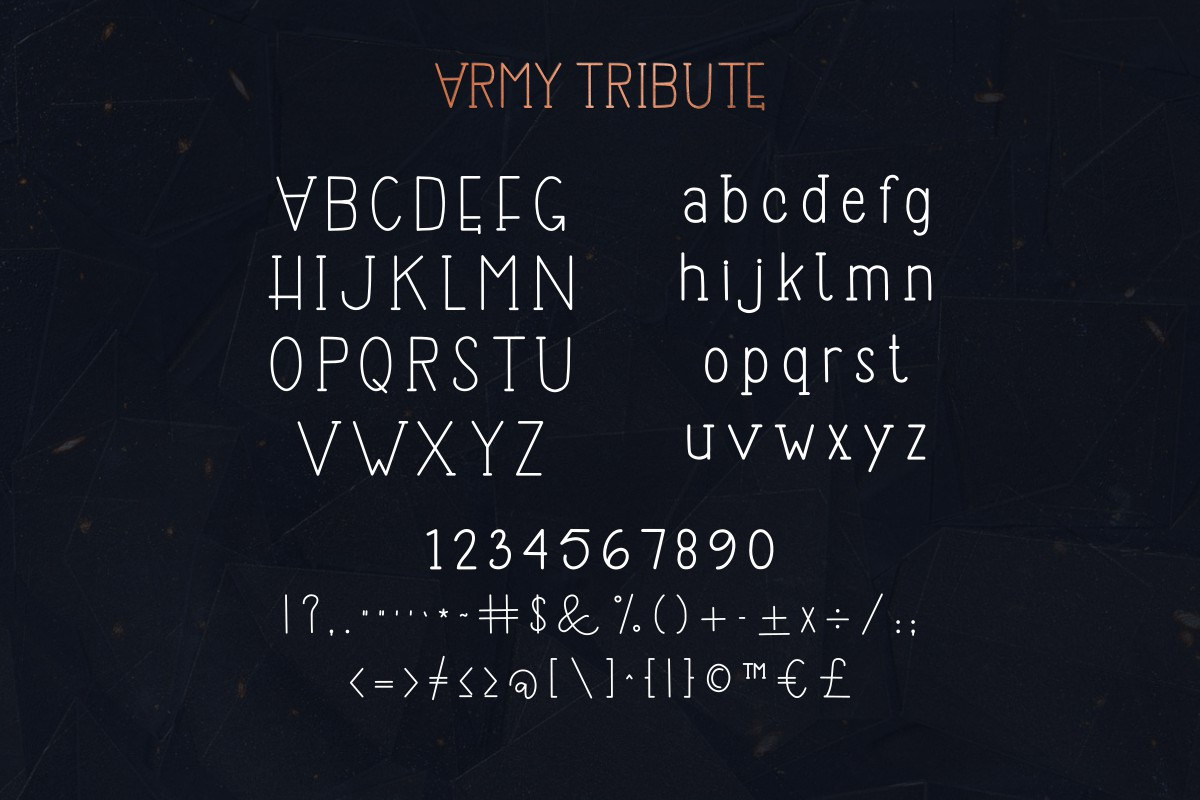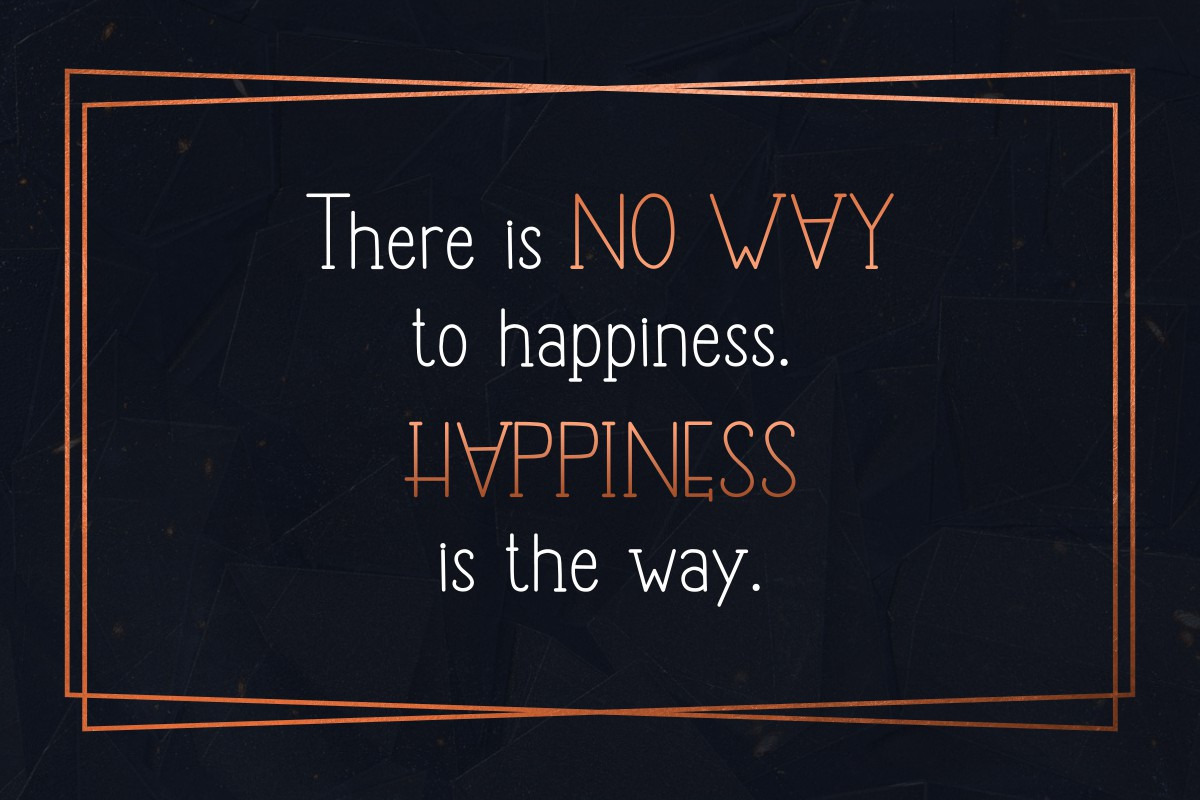
Army Tribute Sans Font
The newest font from our lovely artist : Army Tribute Font
This is a display sans font, handcrafted from our Studio here in, Indonesia. The artists/designers of this beautiful tyeface is Saila and Suci.
Army Tribute Font is an exclusive sans serif for display purpose. This font has a stunning characters set, perfectly managed with well spaced and kerning. The theme style of this font will elegant, vintage, stylish, sophisticated and classic signature style. You wont find any where else, the font like Army Tribute Font